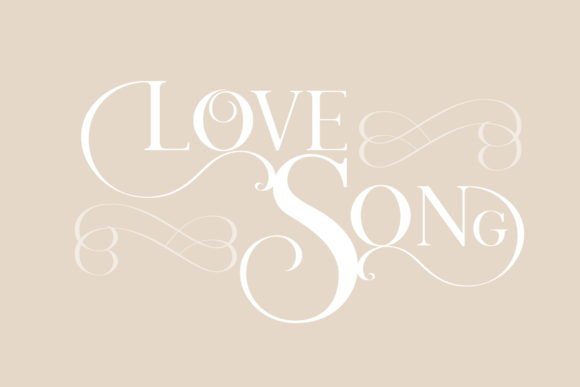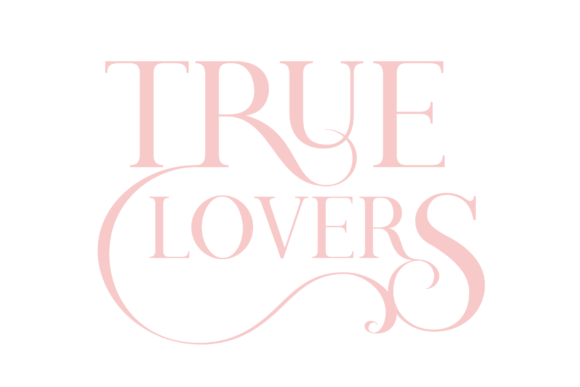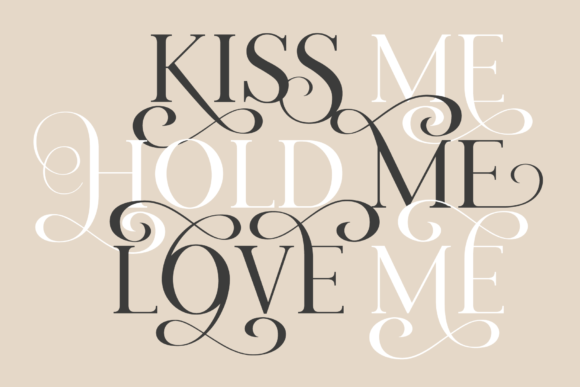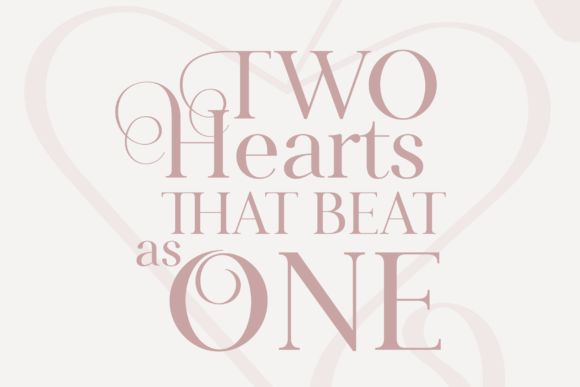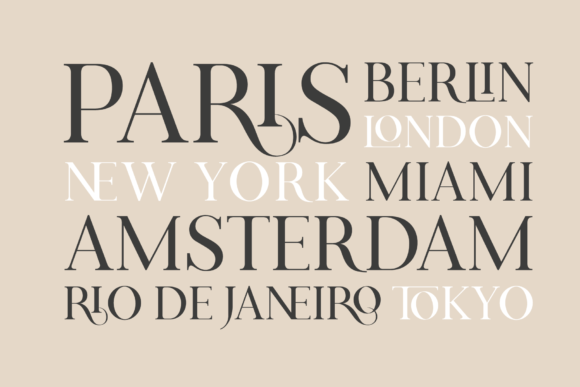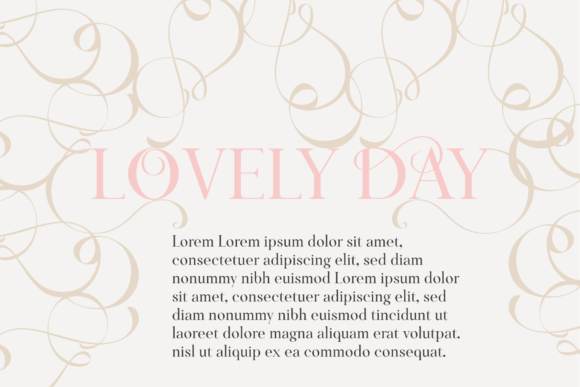
Introduction to Love Moon Standard Font
Love Moon Standard is a charming serif font inspired by the classic roman fonts.
This typeface is great for headlines, invitations, titles, logos It has a large set of alternative uppercase letters with swashes that can be combined to create unique and wonderful designs.
Key Features of Love Moon Standard Font